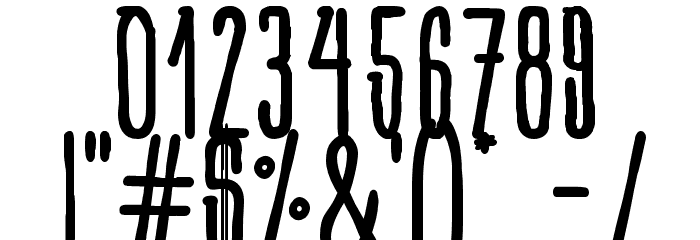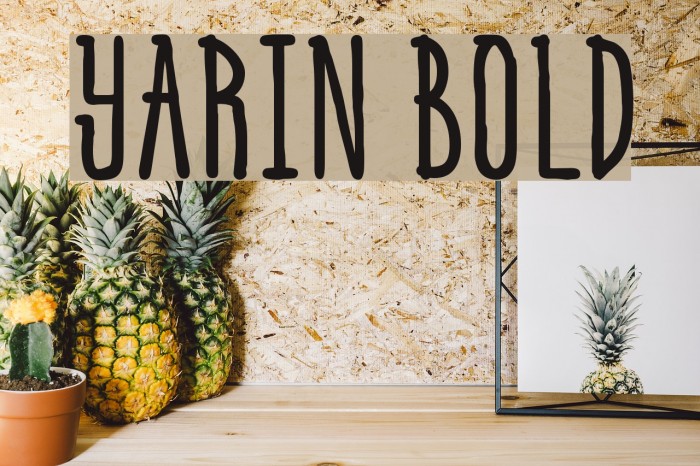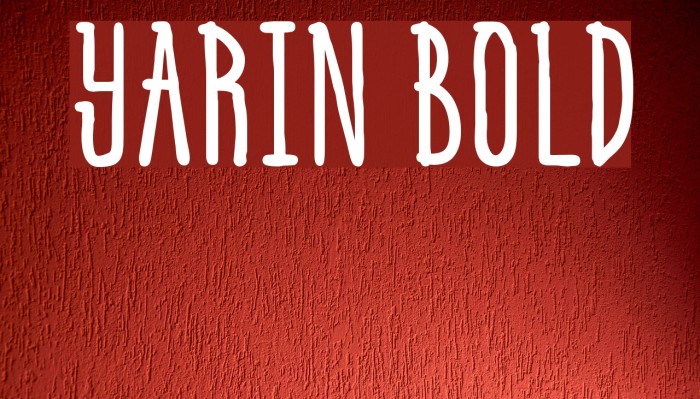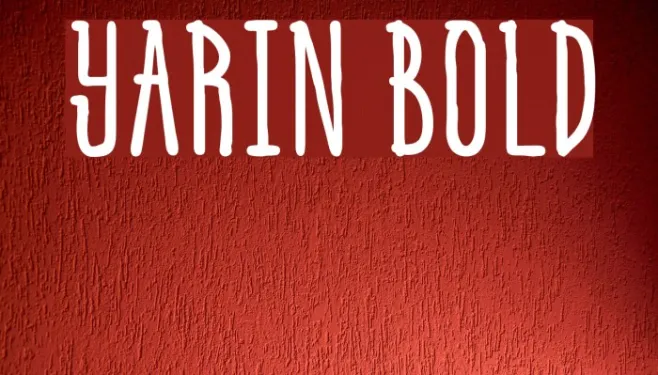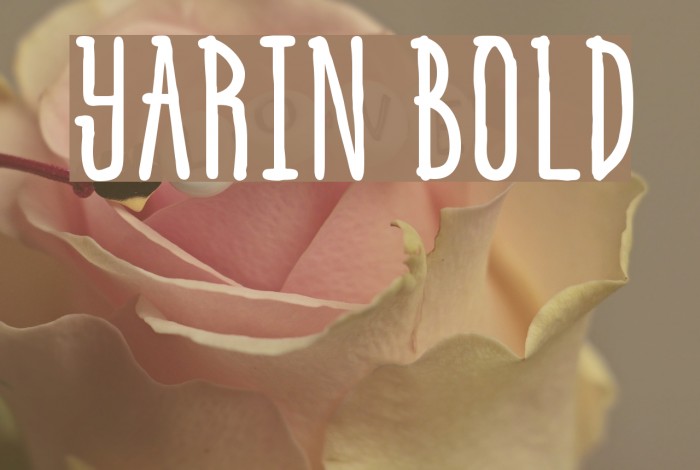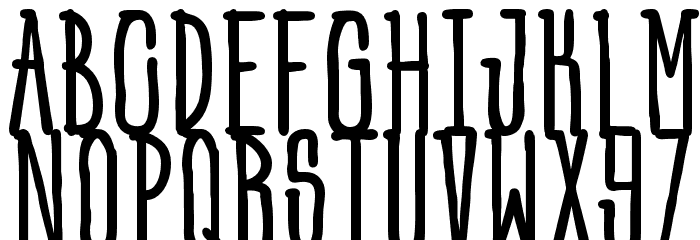
Yarin Bold Font
Yarin Bold Description
This font features a bold and elongated design with a distinct vertical emphasis. The characters are tall and narrow, giving them a unique and striking appearance. The strokes are consistent in width, contributing to a uniform look across all characters. The uppercase and lowercase letters maintain a similar height, enhancing the font's cohesive style. The numerals and special characters are designed to match the overall aesthetic, ensuring a seamless integration in any text. This font's boldness and distinct style make it suitable for attention-grabbing designs.